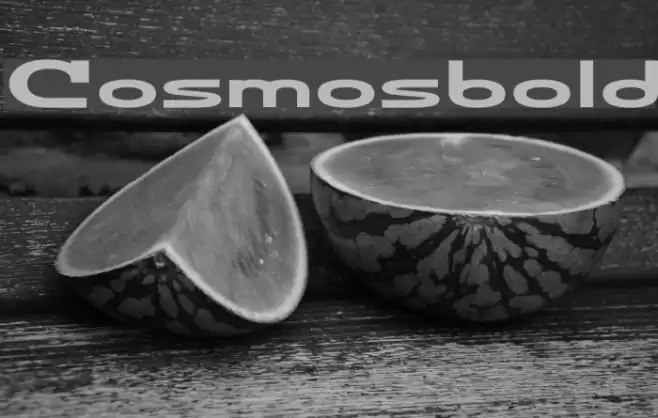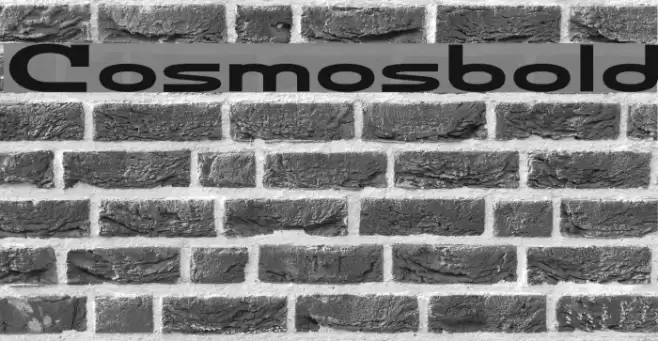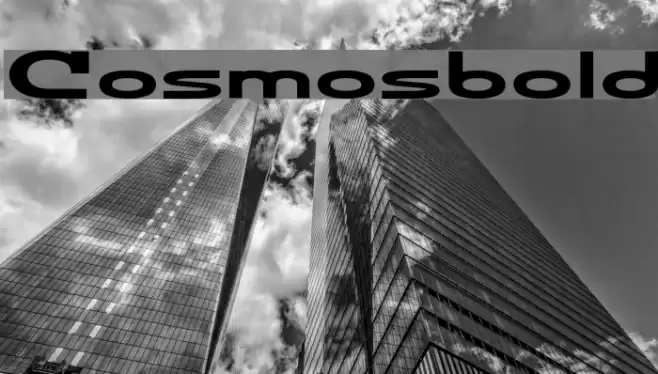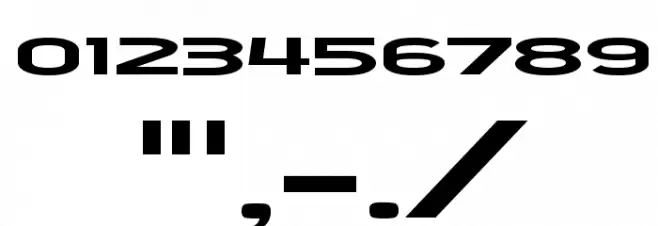
Cosmosbold Font
Cosmosbold Description
This font features a modern and futuristic design with bold, geometric shapes. The characters are constructed with clean lines and a consistent stroke width, giving it a sleek and contemporary appearance. The uppercase letters are particularly striking, with unique angles and curves that add a dynamic feel. The lowercase letters maintain the same geometric style, ensuring uniformity across the typeface. The numerals are bold and easily legible, making them suitable for various applications. The special characters complement the overall design, maintaining the same bold and modern aesthetic.
A modern, bold, and geometric font with a futuristic style from Uncategorized fonts.
- Proposed Projects: Ideal for technology branding, sci-fi themed projects, modern advertising, and digital interfaces.
- Use Case: Headlines, Logos, Digital Interfaces